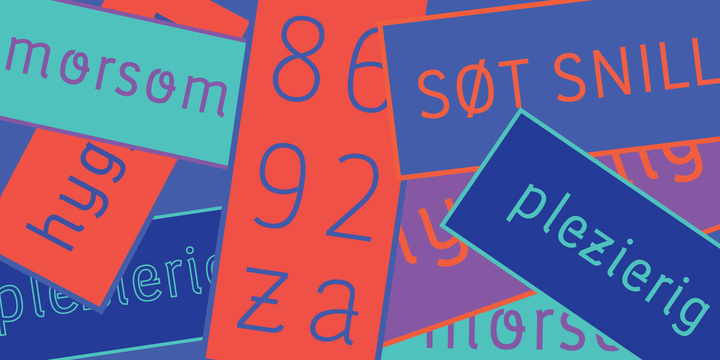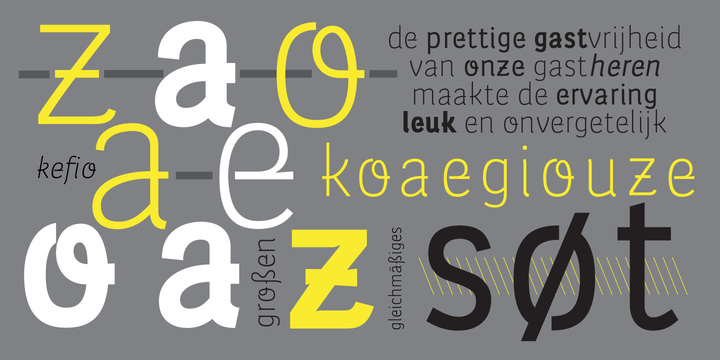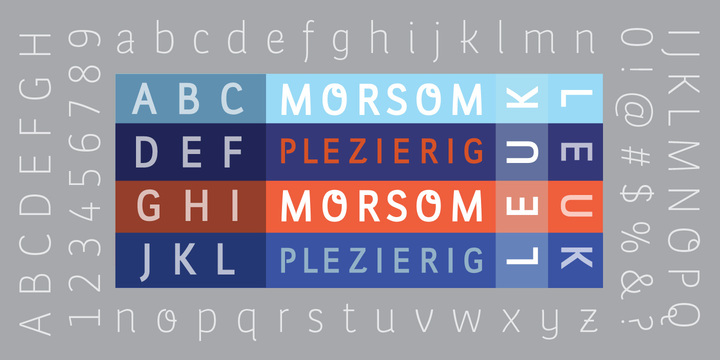
Leuk Font Family
The Dutch word “leuk” translates loosely to English as pleasant, jolly, funny, witty, clever, nice, sweet, kind, nice, amusing, entertaining, and funny.